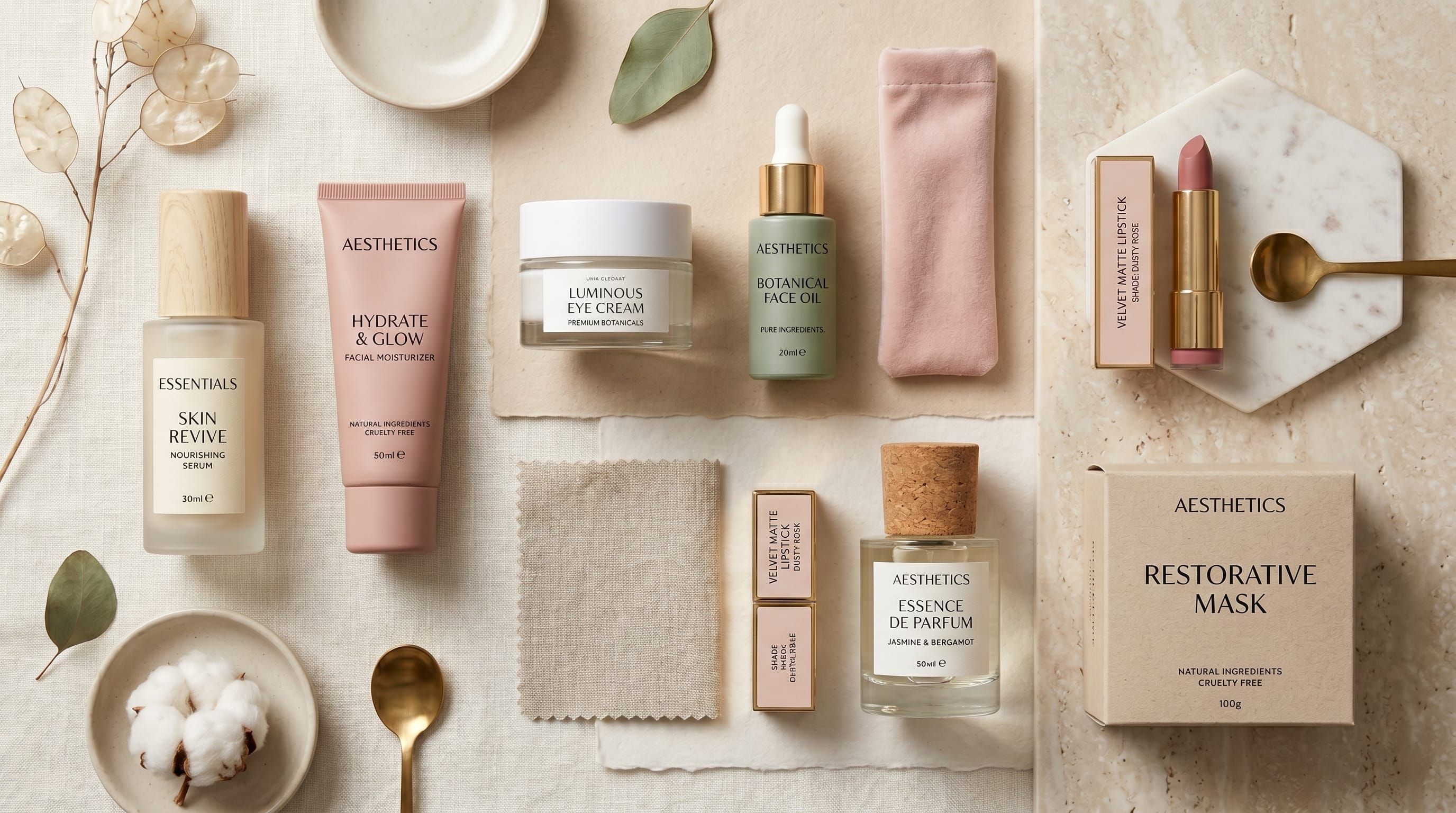
Top Cosmetic Packaging Design Trends for Better Branding
Following modern cosmetic packaging design trends is essential for beauty brands that want to stand out in competitive markets. Packaging is often the first thing customers notice, and strong visual presentation can influence purchasing decisions instantly. Modern cosmetic packaging design trends combine elegance, functionality, and emotional branding to create memorable beauty products.
In this guide, you’ll explore the latest cosmetic packaging design trends, along with practical tips, typography ideas, and branding strategies. Whether you are designing skincare, makeup, fragrance, or beauty packaging, these cosmetic packaging design trends can help you achieve better branding results.
Why Cosmetic Packaging Design Trends Matter
Modern cosmetic packaging design shape how customers perceive beauty products.
• Stronger visual identity
• Increased product appeal
• Better customer trust
Following current cosmetic packaging design helps beauty brands stay modern and competitive.
Minimalist Cosmetic Packaging Design Trends
Minimal aesthetics dominate modern cosmetic packaging design.
1. Clean Layouts
Simple compositions create elegant branding.
2. Neutral Color Palettes
White, beige, cream, and soft gray create premium visuals.
3. Simple Typography
Minimal typography improves readability and sophistication.
These minimalist cosmetic packaging design work especially well for skincare brands.
Luxury Cosmetic Packaging Design Trends
Luxury branding remains one of the strongest cosmetic packaging design.
1. Gold and Metallic Accents
Create premium and elegant aesthetics.
2. High Quality Finishes
Matte textures and embossing improve perceived value.
3. Elegant Typography
Refined serif fonts strengthen luxury identity.
Luxury-focused cosmetic packaging design help brands feel exclusive.
Eco Friendly Cosmetic Packaging Design Trends
Sustainability is transforming cosmetic packaging design.
1. Recyclable Materials
Eco-friendly packaging attracts conscious consumers.
2. Refillable Packaging
Supports long-term sustainability goals.
3. Natural Color Schemes
Earthy palettes reinforce organic branding.
These eco friendly cosmetic packaging design appeal to modern beauty audiences.
Bold and Colorful Cosmetic Packaging Design Trends
Bright visuals are becoming popular in cosmetic packaging design.
1. Vibrant Color Palettes
Bold colors improve shelf visibility.
2. Gradient Effects
Soft gradients create modern beauty aesthetics.
3. Playful Layouts
Creative compositions attract younger audiences.
Colorful cosmetic packaging design help brands stand out quickly.
Soft Pastel Cosmetic Packaging Design Trends
Pastel aesthetics remain popular in cosmetic packaging design.
1. Muted Pink and Cream
Create gentle and feminine visuals.
2. Soft Lavender and Beige
Add calm and elegant aesthetics.
3. Minimal Pastel Layouts
Support premium beauty branding.
Pastel-focused cosmetic packaging design work especially well for skincare.
Transparent Cosmetic Packaging Design Trends
Transparency is becoming a key element in cosmetic packaging design.
1. Clear Containers
Show product quality and texture.
2. Minimal Labels
Keep packaging visually clean.
3. Modern Presentation
Enhance trust and authenticity.
Transparent-focused cosmetic packaging design create modern appeal.
Typography Trends in Cosmetic Packaging Design
Typography is essential in modern cosmetic packaging design.
1. Elegant Serif Fonts
Perfect for luxury and premium beauty branding.
2. Minimal Sans Serif Fonts
Create clean and modern aesthetics.
3. Handwritten Script Fonts
Add personality and femininity.
Typography-driven cosmetic packaging design strengthen brand identity.
Font Pairing Suggestions for Cosmetic Packaging
Based on DM Letter Studio-inspired styles, these pairings work especially well with modern cosmetic packaging design:
1. Elegant Serif + Signature Script
Creates luxurious and feminine branding.
Font Suggestions:
Vineora Monogram
Graciast - Signature Font
Verdaleaf Monogram
Omarta - Signature Font
Best for:
• Luxury skincare packaging
• Perfume branding
• Beauty product labels
2. Minimal Sans Serif + Elegant Serif
Balances readability and premium aesthetics.
Font Suggestions:
ROSA - Classy Sans Serif
Herbalique Monogram